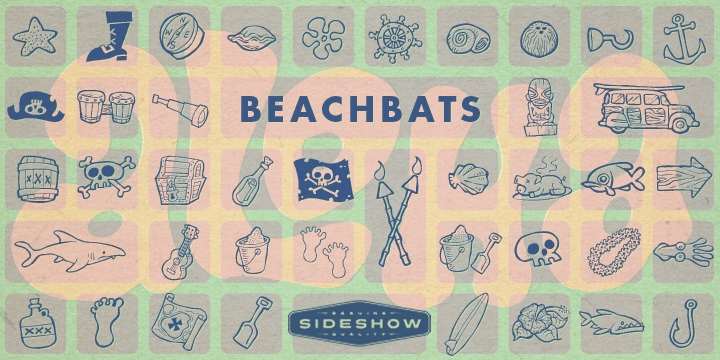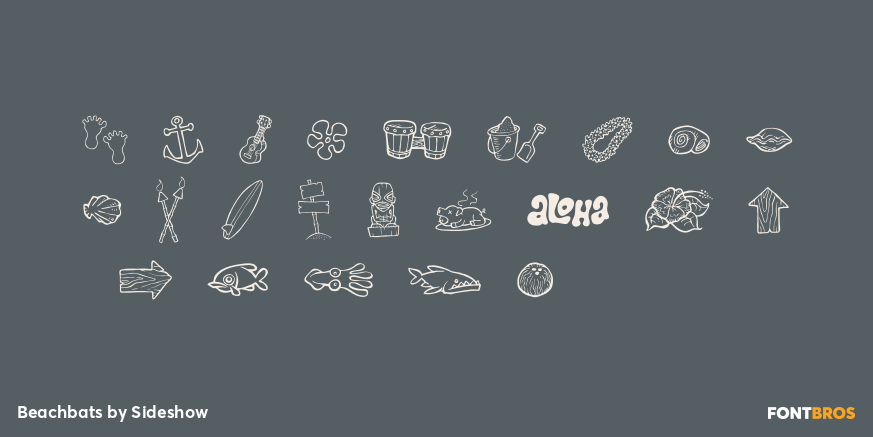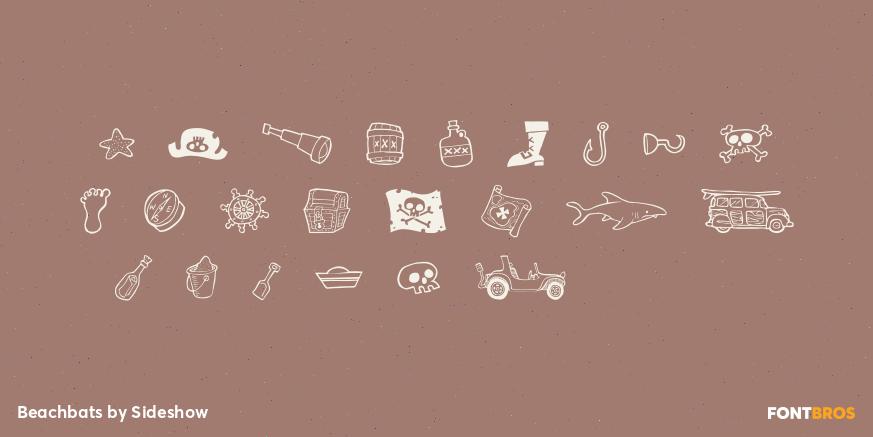
Beachbats
Font Family by Sideshow
Shaka, dude! Arggggh! Whether you're shiverin' timbers, eatin' a luau pig, or catchin' waves, Beachbats gives you all the stuff you need for a family trip to the seashore or a pirate raid in Bora Bora. And it's conveniently packed in a handy little font file that stays neat, clean and free of annoying sand! Another fine consumer product from Squid and Sideshow.